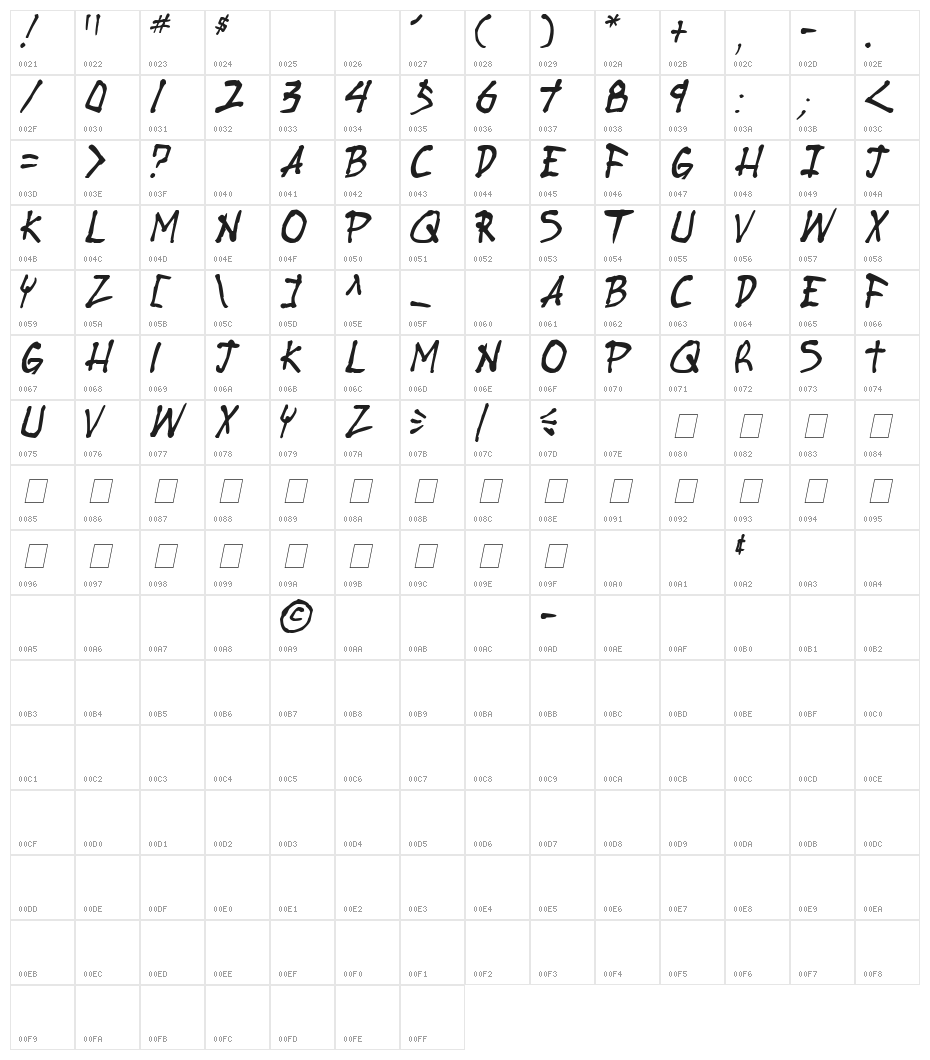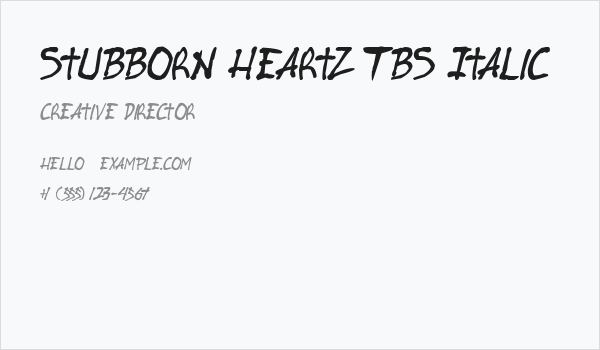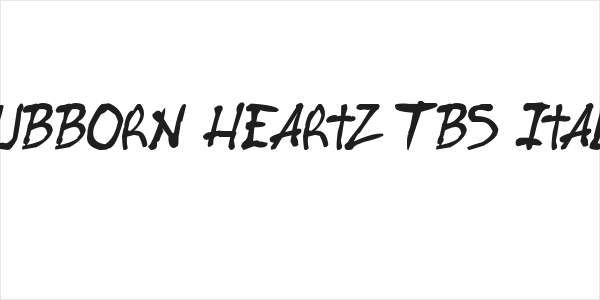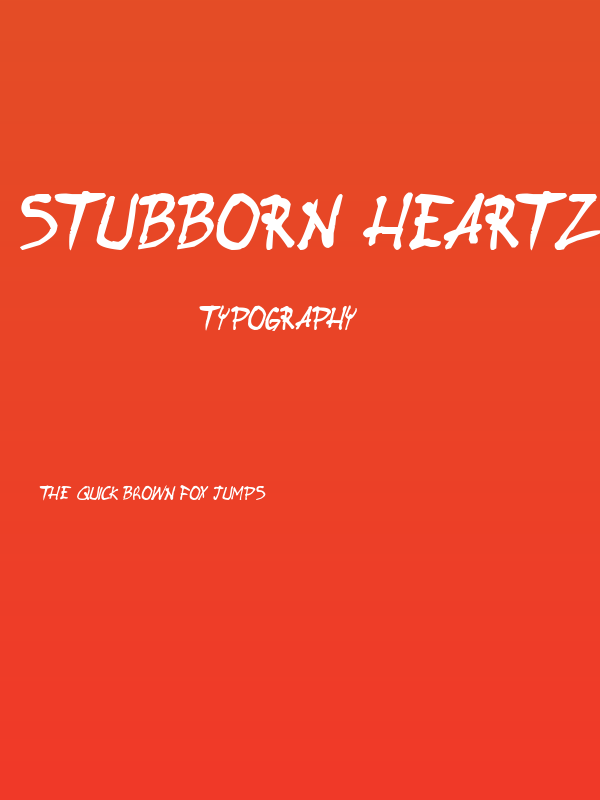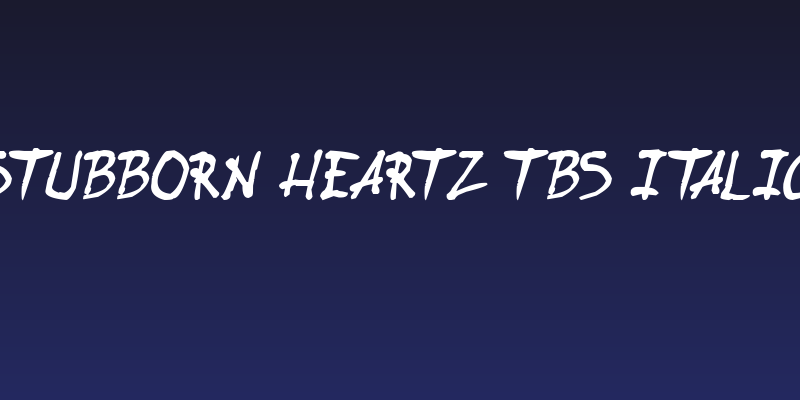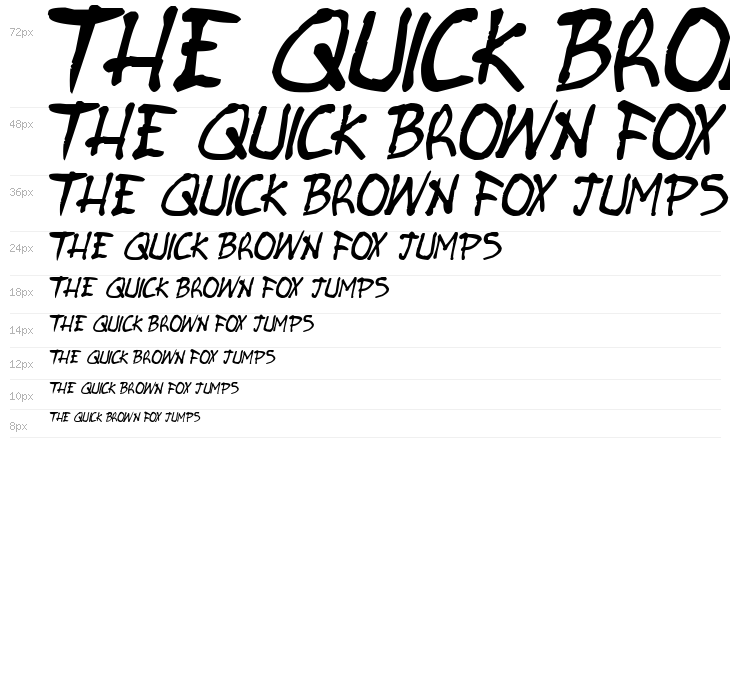
Stubborn Heartz TBS Italic Font
Stubborn Heartz TBS Italic Description
This font features a dynamic and expressive style with a handwritten appearance. The letters are slightly slanted, giving it an italicized look, and the strokes are bold and fluid, creating a sense of movement and energy. The uppercase and lowercase letters maintain a consistent flow, while the numerals and special characters complement the overall design. The font's unique character is evident in its playful curves and sharp angles, making it stand out in any design context. Its informal yet stylish appearance makes it suitable for creative projects that require a personal touch.
| Proposed Projects | Ideal for greeting cards, posters, branding, and social media graphics where a personal and energetic touch is desired. |